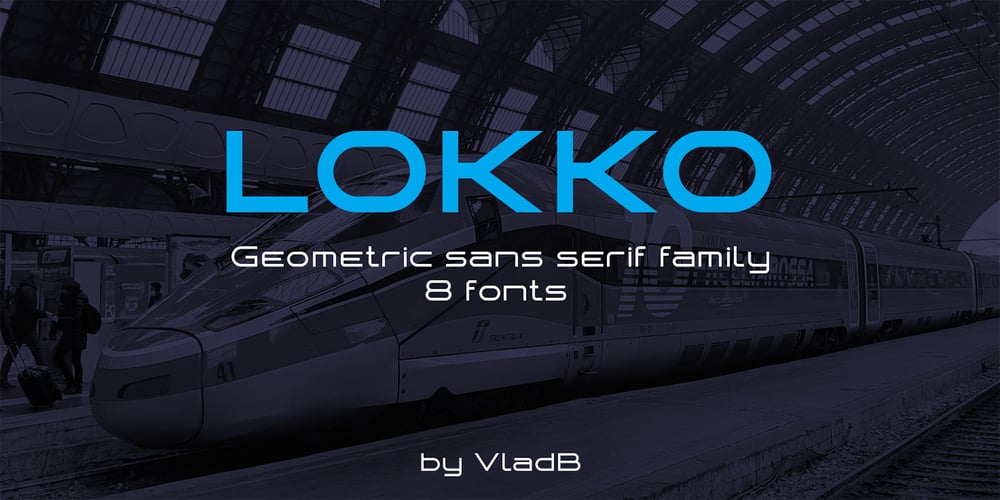
Lokko Font Family was designed by Volodymyr Berla and published by VladB. Lokko contains 8 styles and family package options. Lokko is a modern sans serif geometric font, includes upper and lower case characters, Latin, Cyrillic, Latin Extended symbols and other.The Lokko family consists of 8 fonts, divided into 2 subgroups (according to the type of style – St, Cut), and have the 4 types of thickness in each subgroup.Lokko fonts will be useful in developing a brand, creating posters and other graphic products, and for word processing.